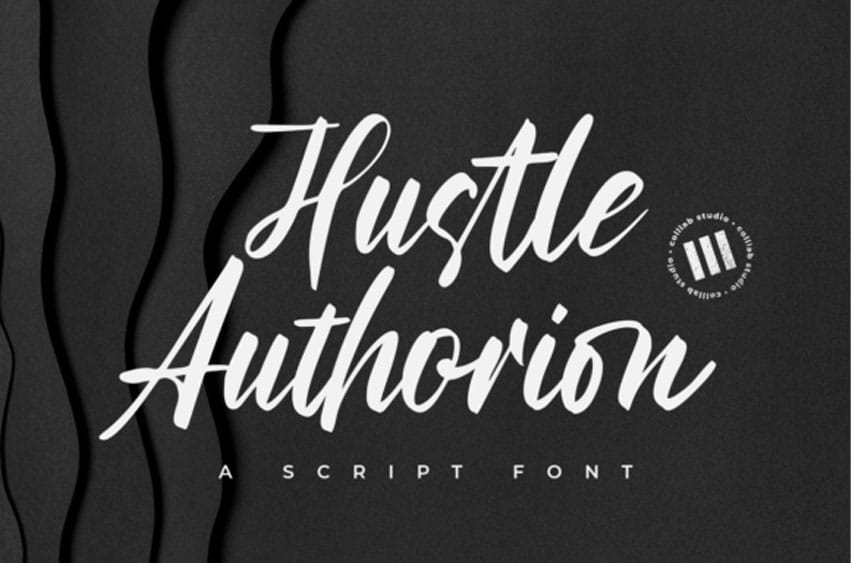
Hustle Authorion Font is a paint brushed handwritten font.
Whether you’re using it for crafting, digital designing, presentations or greeting cards making, it’s perfect!